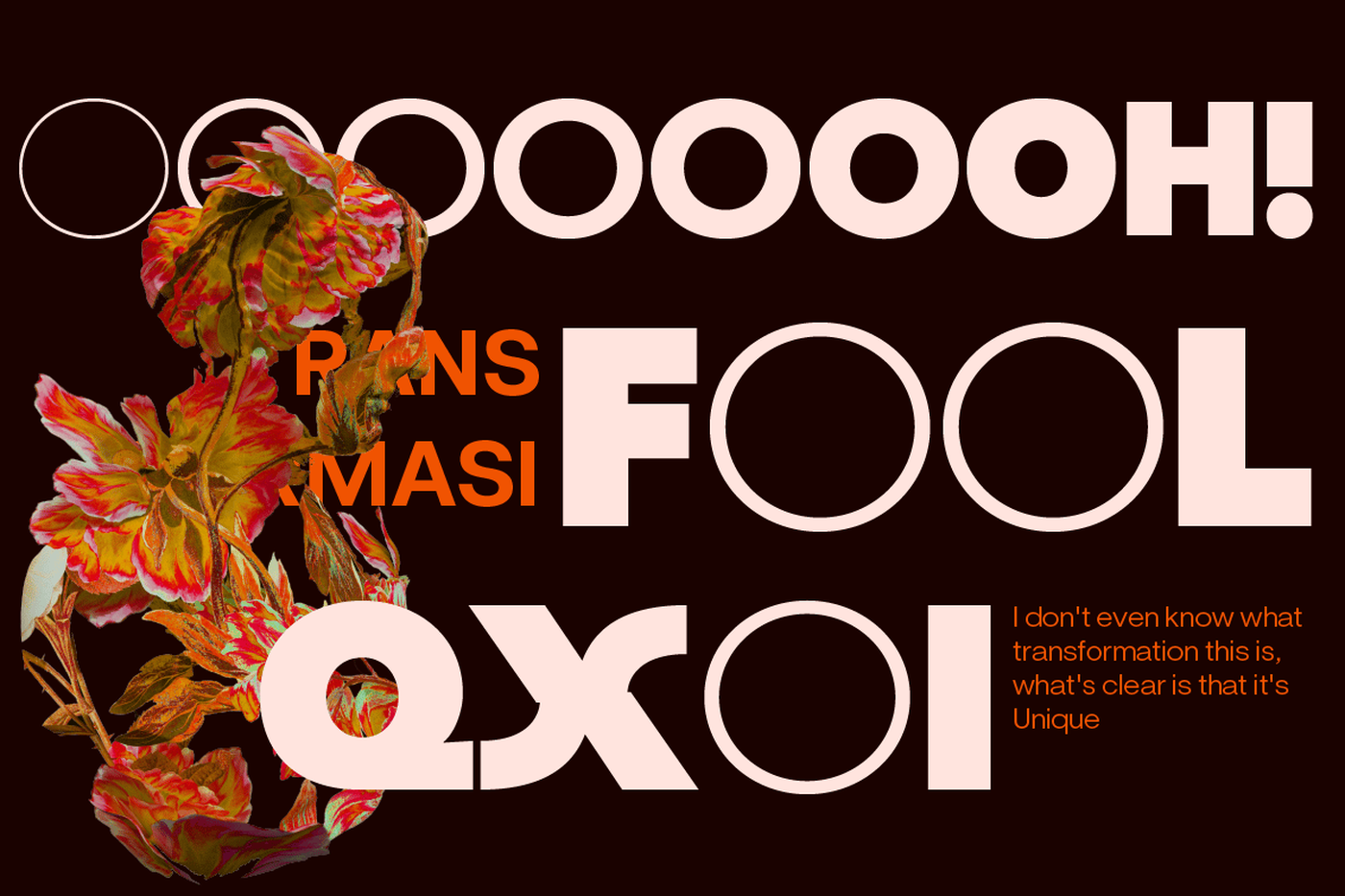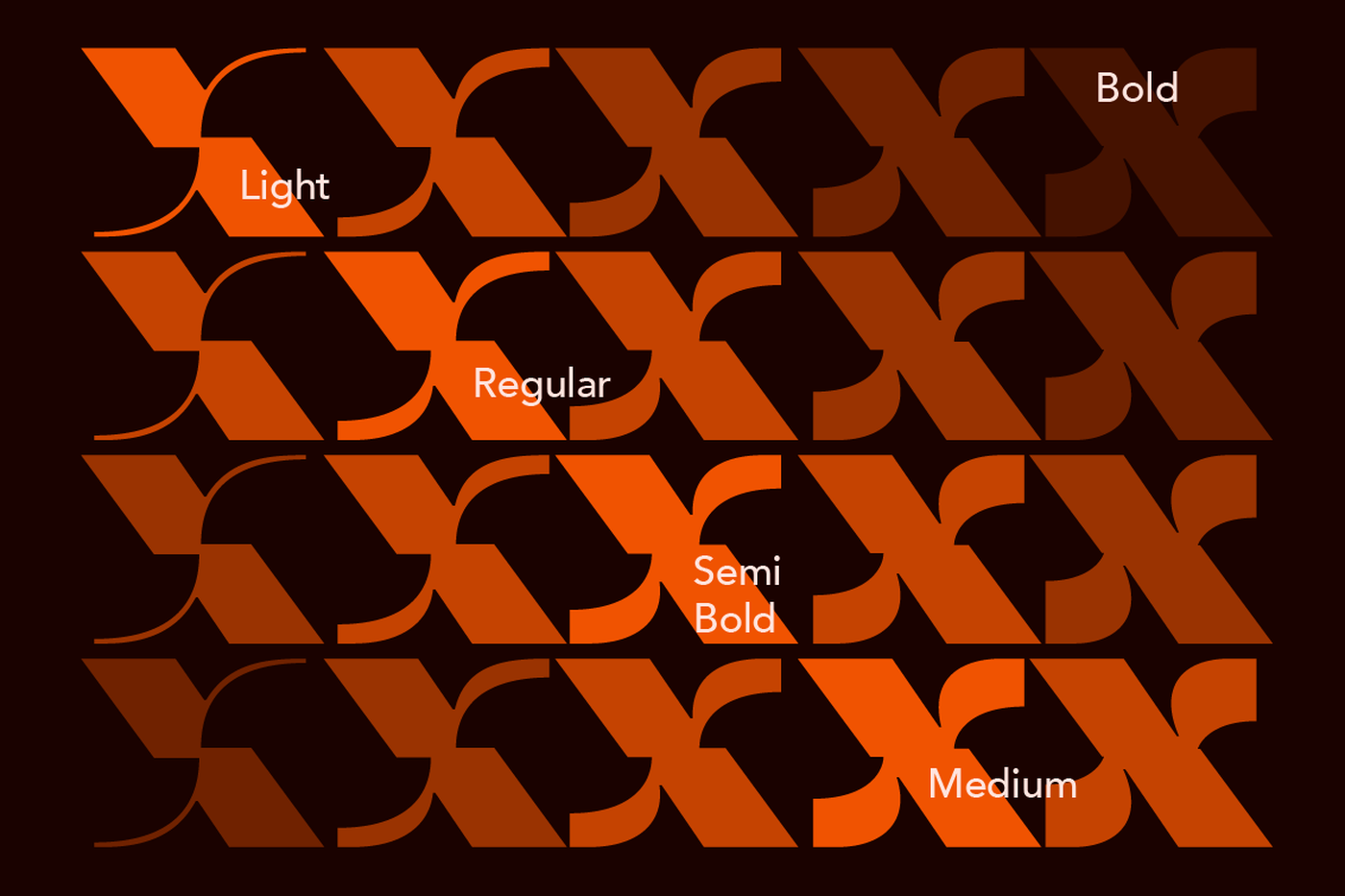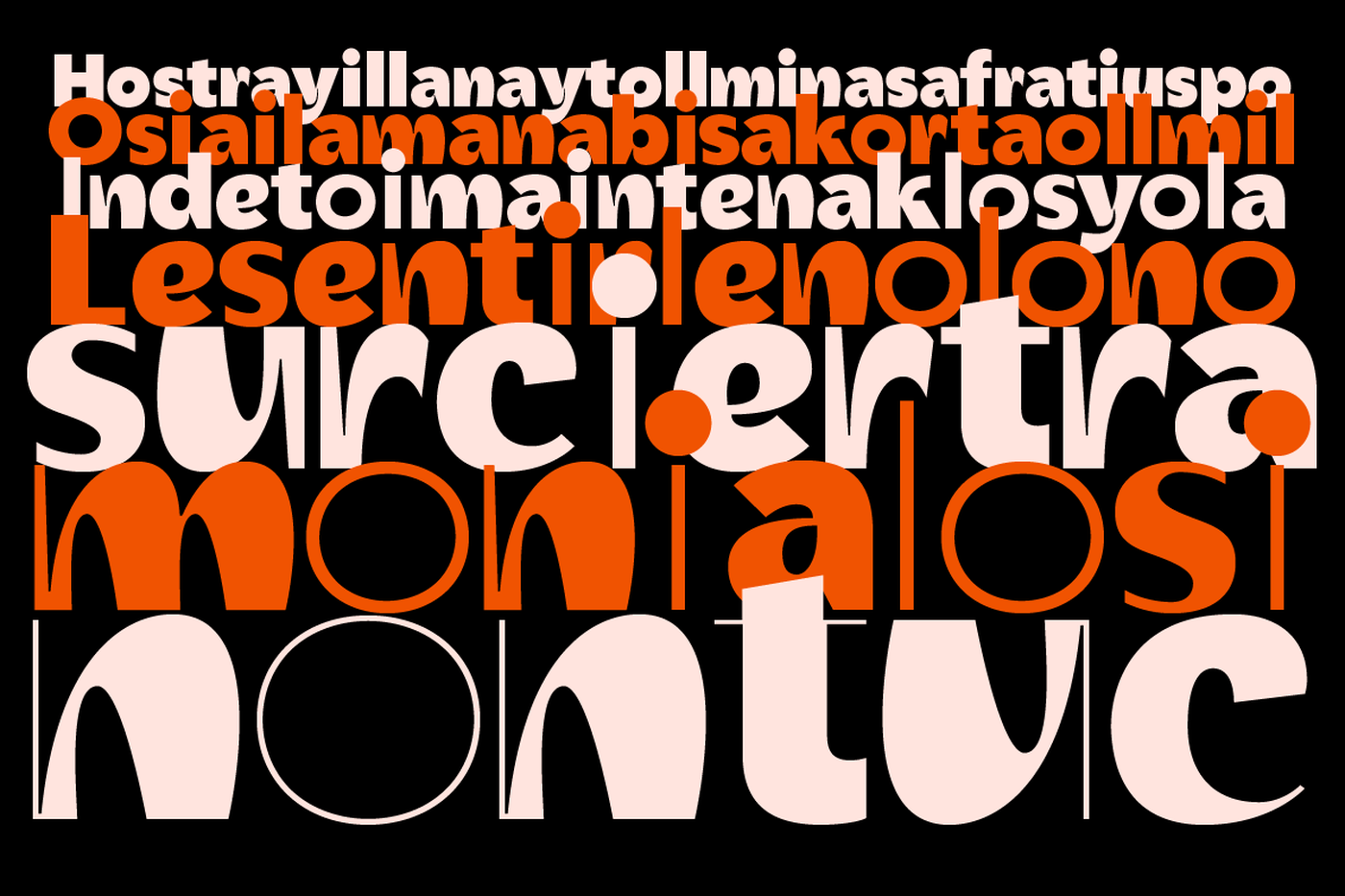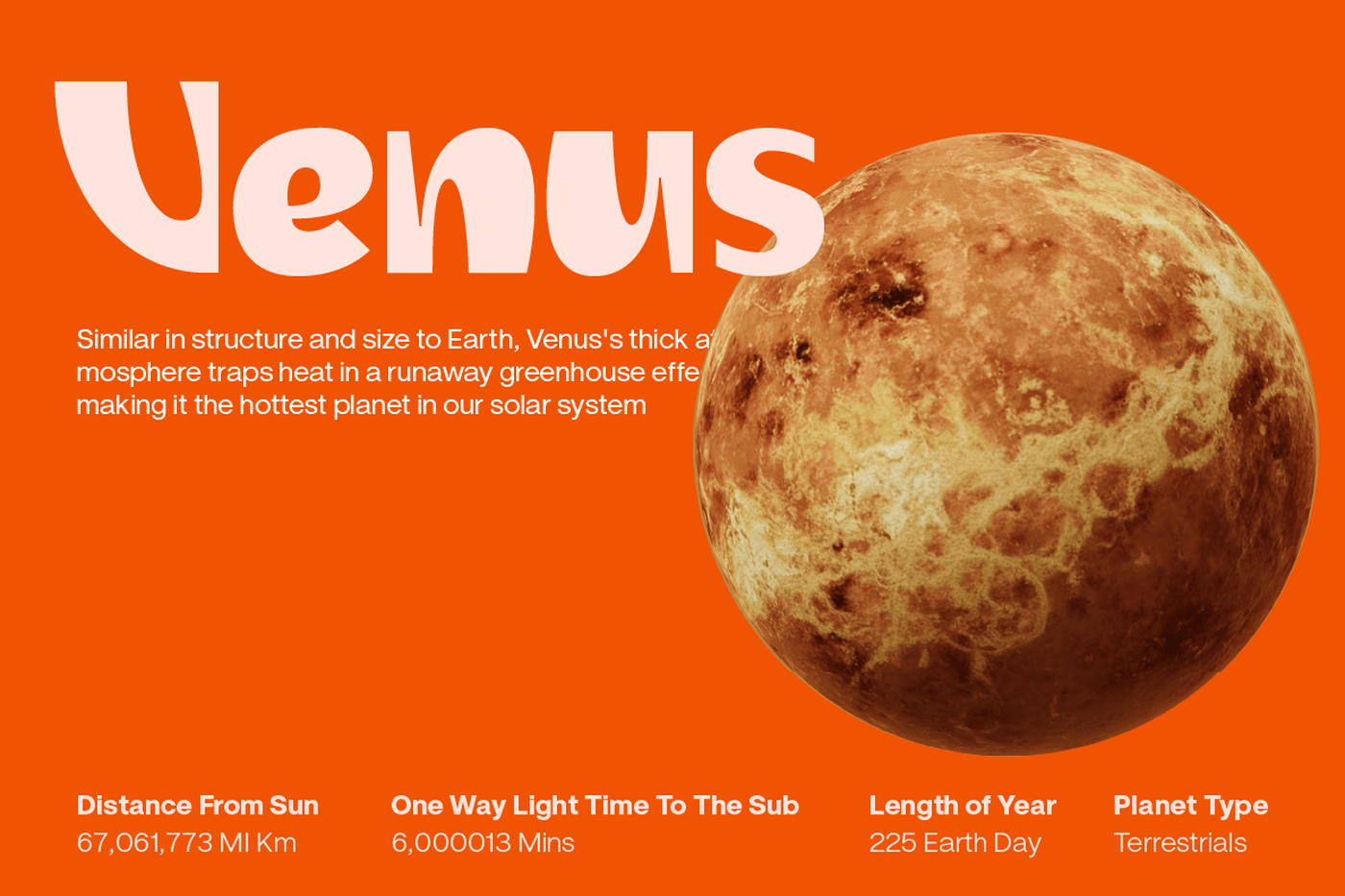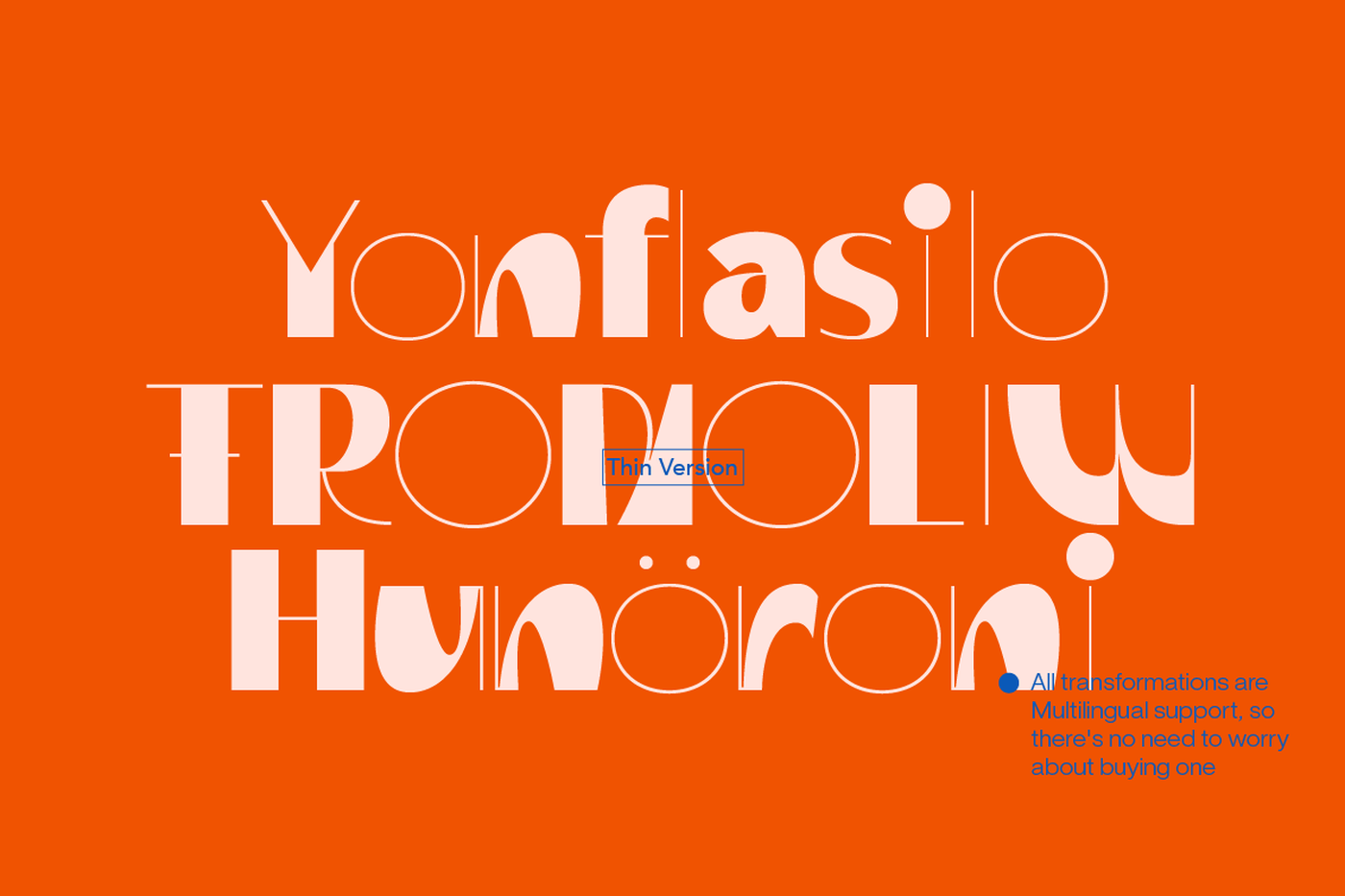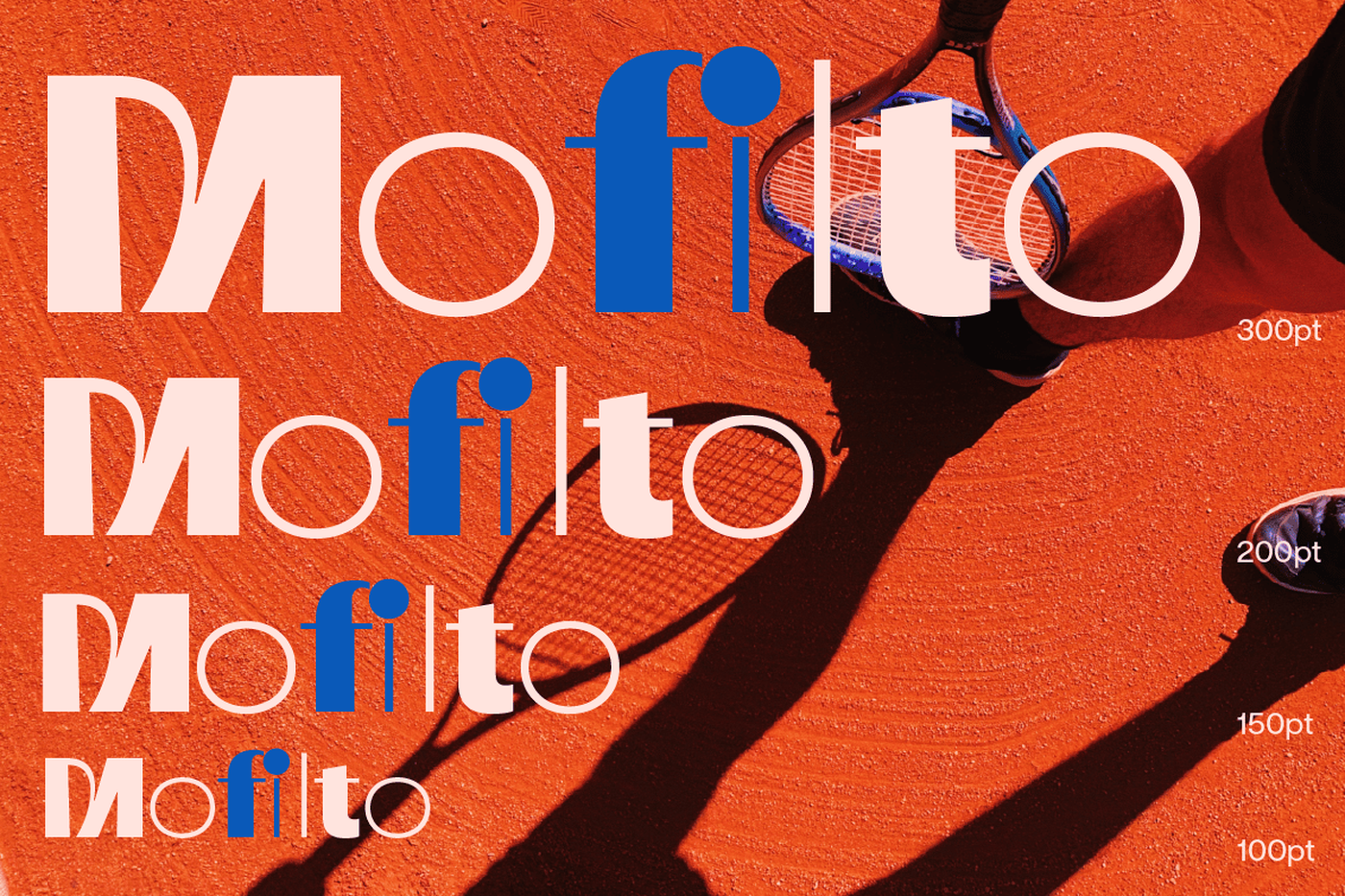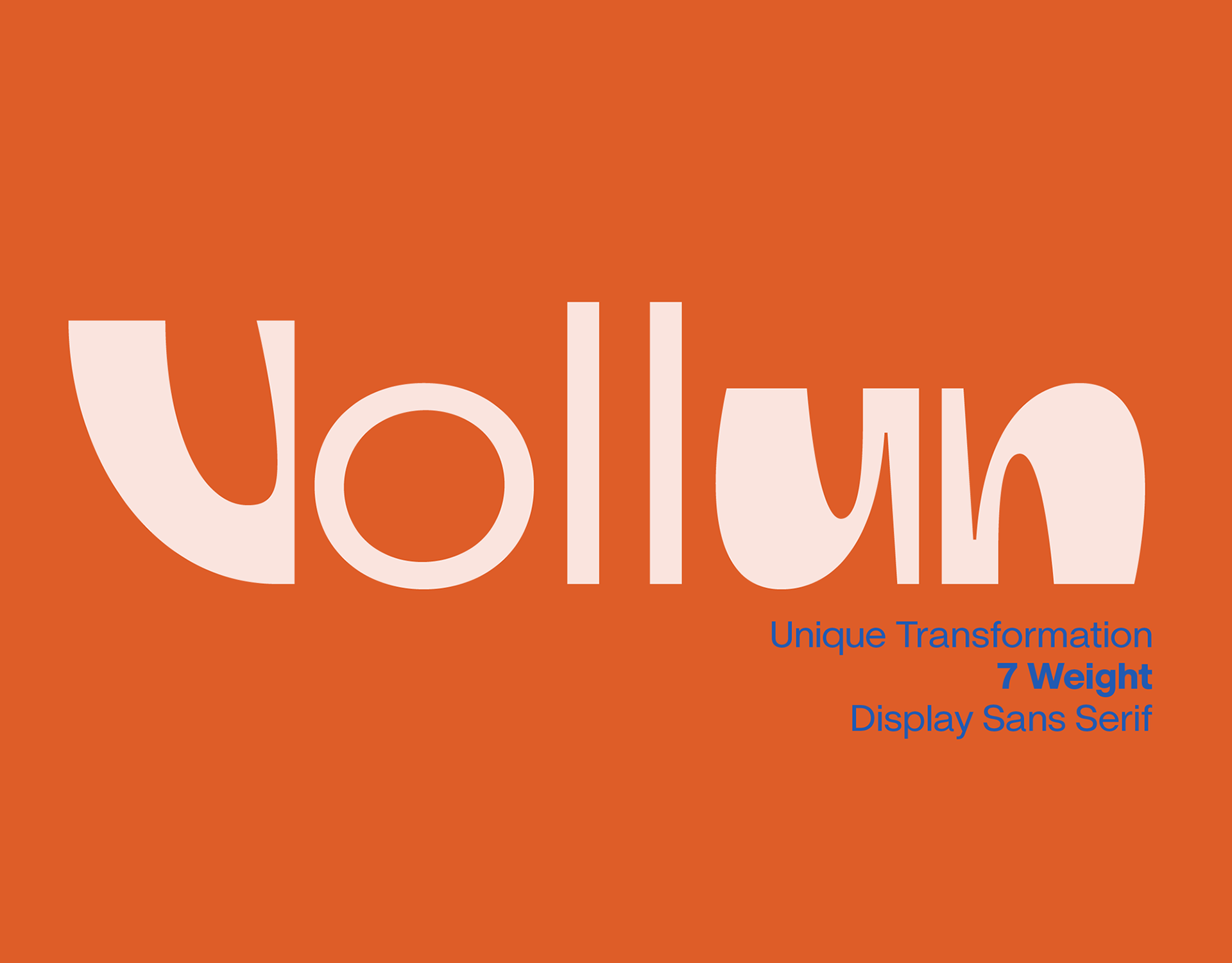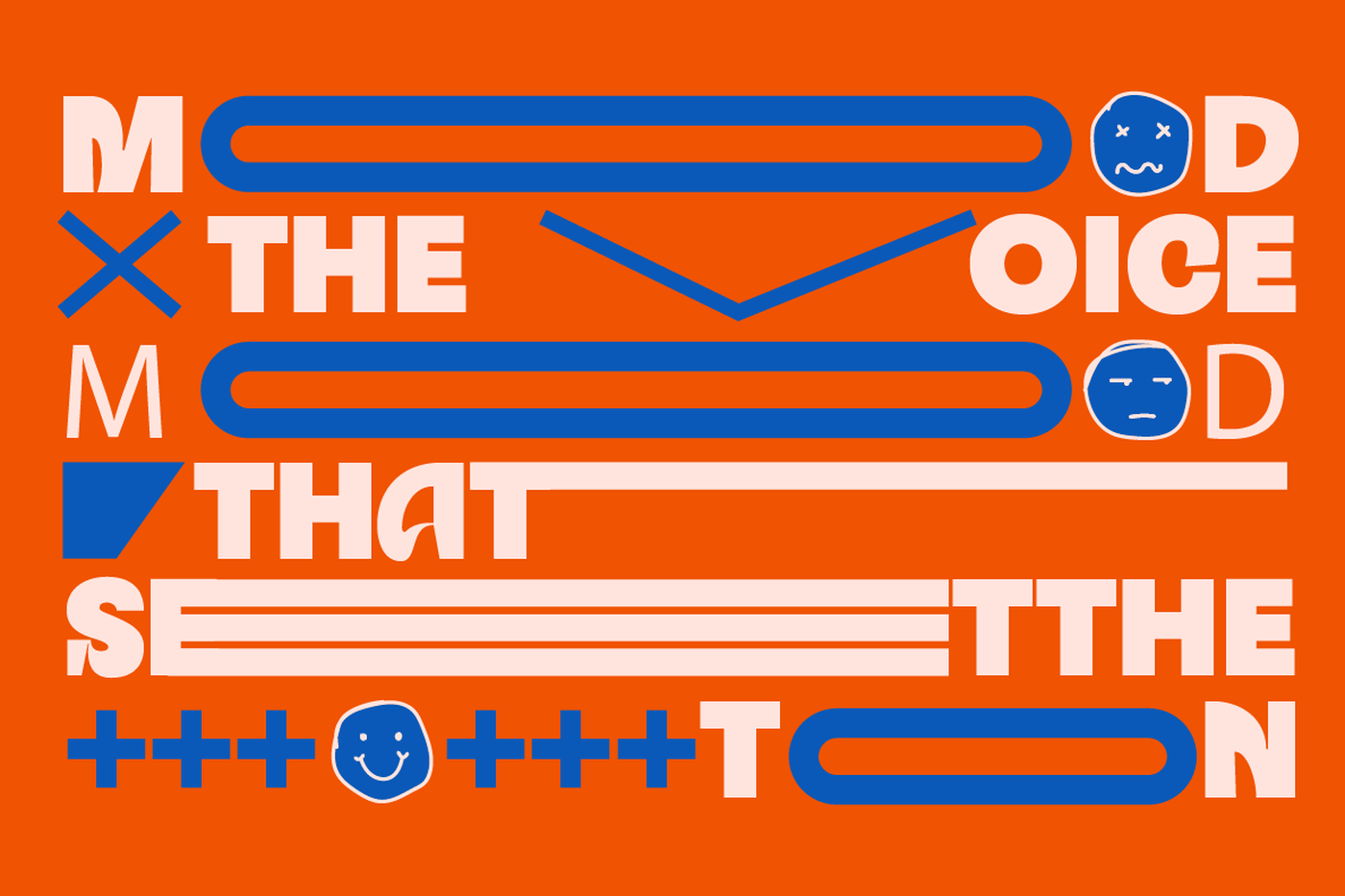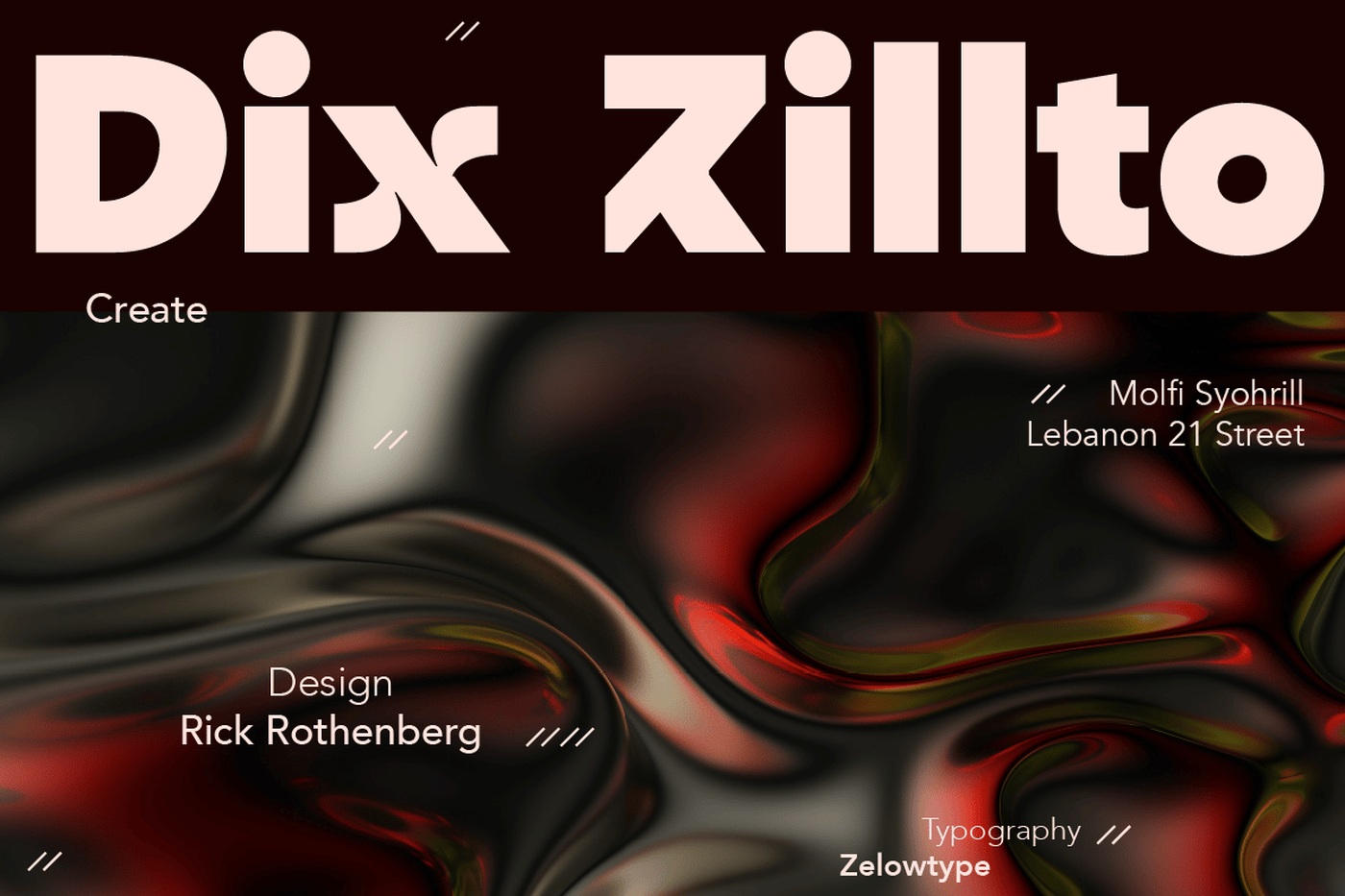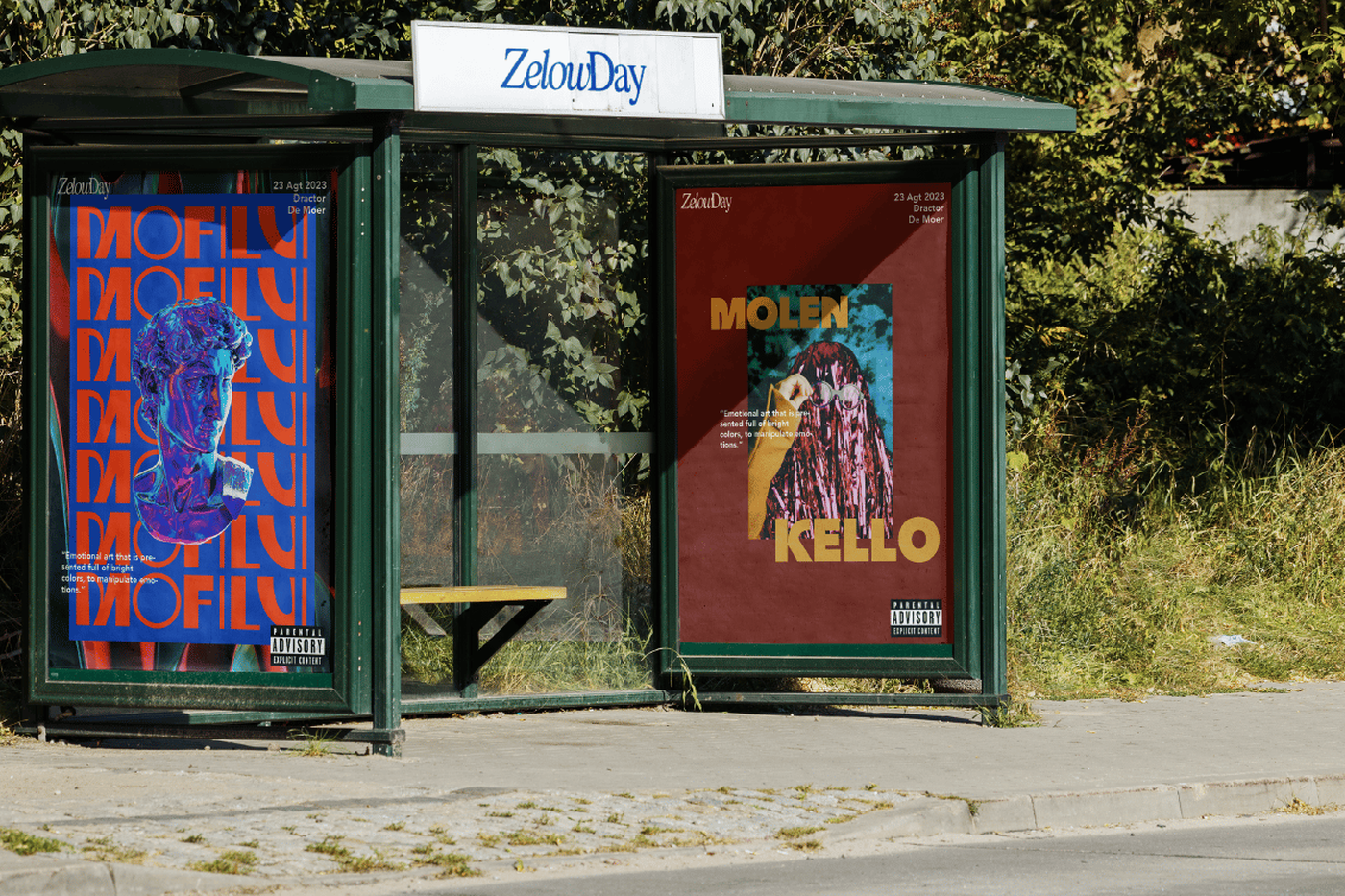
Vollun - Unique Bold Font
ZT Vollun consists of 7 weights, starting from the thin one with curves combined with thin strokes, offering a playful aura, to the thickest one with a firm design that will present a thick modern atmosphere. Whether you're working on a branding project, an editorial project, or any other graphic project, ZT Vollun is the perfect choice for a modern, elegant look or any design vibe you can get your hands on.
Font: Vollun